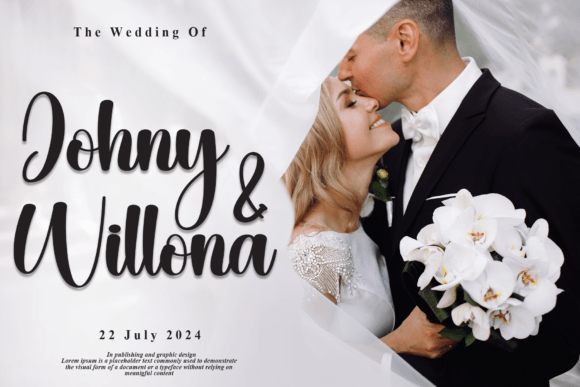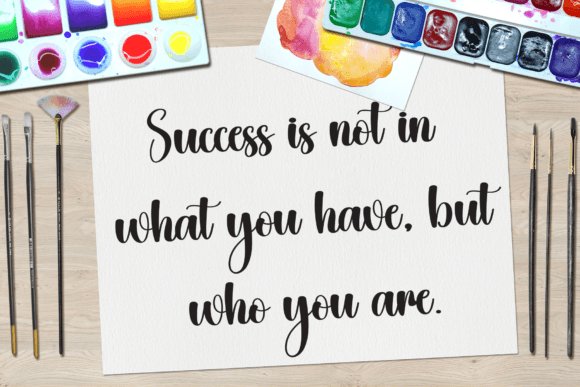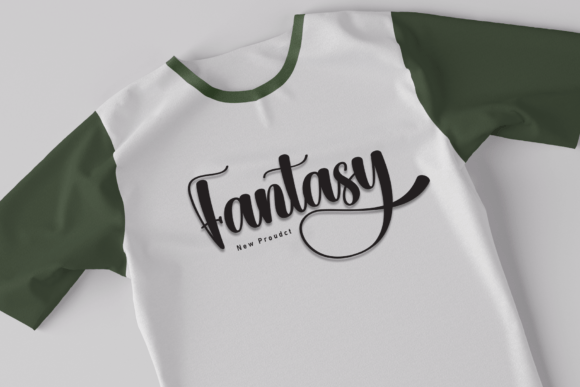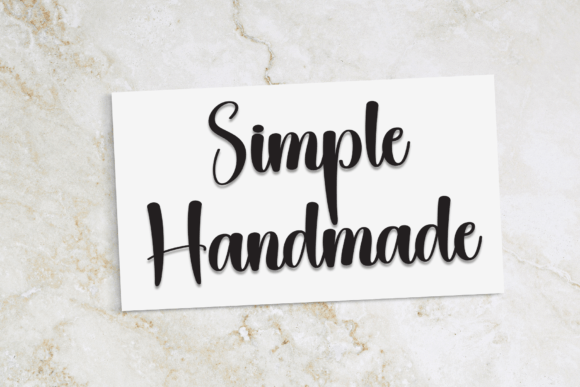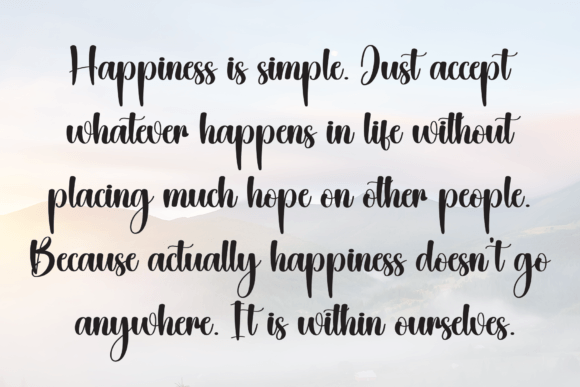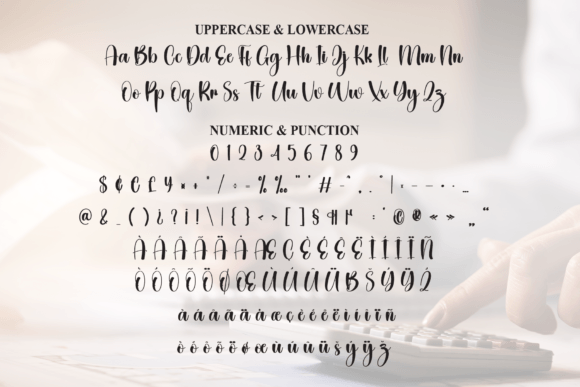
The Elegance of Budget Font: A Designer’s New Best Friend
I’ll never forget the time I was working on a wedding invitation project, and my client asked for a font that was “elegant, yet playful.” I scoured the internet, tried out dozens of fonts, but nothing seemed quite right. That was until I stumbled upon Budget Font. Its flowing, graceful curves immediately caught my eye, and I knew I had found the perfect fit. In this article, I’ll share my experience with Budget Font, its features, and how to make the most of it in your designs.
• ✨ Elegant and charming: Budget Font exudes sophistication and warmth, making it perfect for invitations, logos, and branding.
• ✅ Delicate strokes: The font’s gentle strokes bring a touch of whimsy and creativity to any design.
• ✨ Versatile: Budget Font works beautifully in both digital and print formats.
While Budget Font is an excellent choice, it’s not without its limitations. For instance:
• ⚠️ Limited character set: Budget Font might not have all the characters you need, especially for non-English languages.
• 🤔 Occasional kerning issues: As with any font, you might need to adjust kerning for optimal results.
4. Experiment with OpenType features, such as ligatures and stylistic alternates, to add visual interest.
The Story Behind Budget Font
Budget Font was designed by a talented type designer who aimed to create a font that was both elegant and approachable. Inspired by traditional calligraphy and modern digital design, Budget Font strikes a balance between sophistication and playfulness. The designer’s goal was to craft a font that would add a personal touch to any project, making it perfect for designers, crafters, and creative hobbyists.
Q: Is Budget Font suitable for body text?
A: While Budget Font is beautiful, it’s best suited for headlines, titles, and short paragraphs. For body text, consider a more legible font.